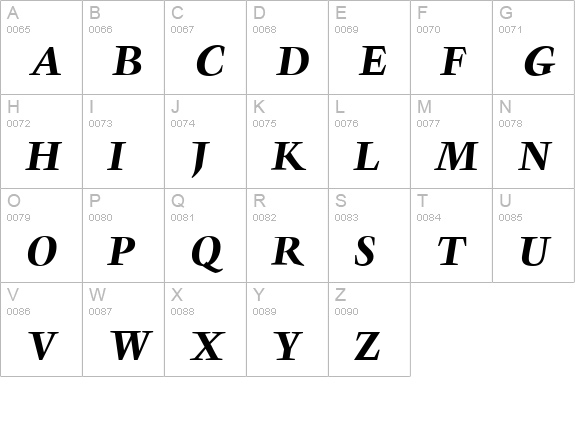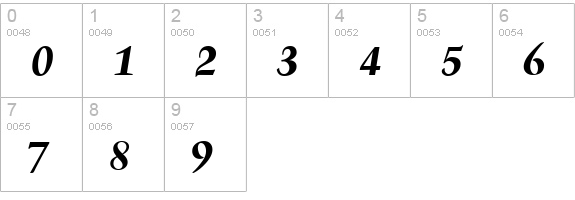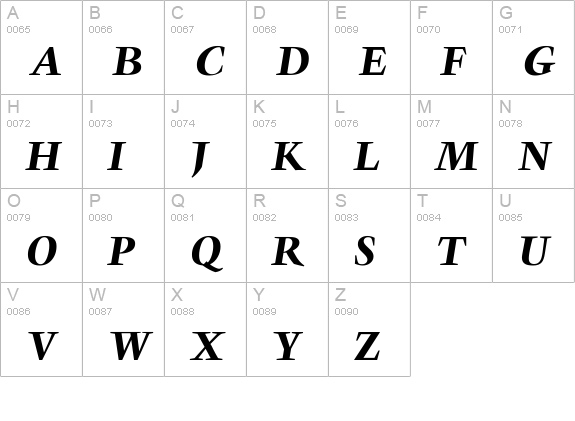
Introducing Troubadour-BoldItalic font, a bold and expressive typeface that exudes elegance and sophistication. Its striking italicized design adds a touch of flair to any project, making it perfect for branding, headlines, and more. What sets Troubadour-BoldItalic apart is not only its stunning appearance but also the fact that it is completely free for personal and commercial use. You can easily download this versatile font from FontsMarket.com and start incorporating its unique charm into your designs today. With its bold strokes and graceful curves, Troubadour-BoldItalic is sure to make a statement and leave a lasting impression. Whether you're working on a poster, logo, or website, this font will elevate your design and bring it to life. Don't miss out on this opportunity to enhance your projects with the beauty of Troubadour-BoldItalic - download it now for free at FontsMarket.com!